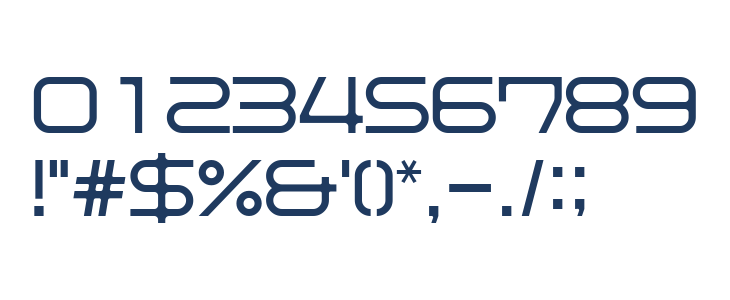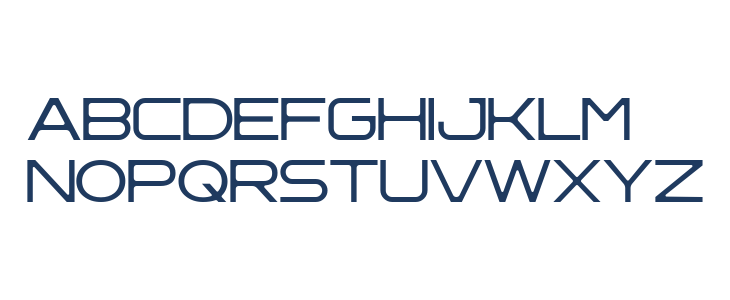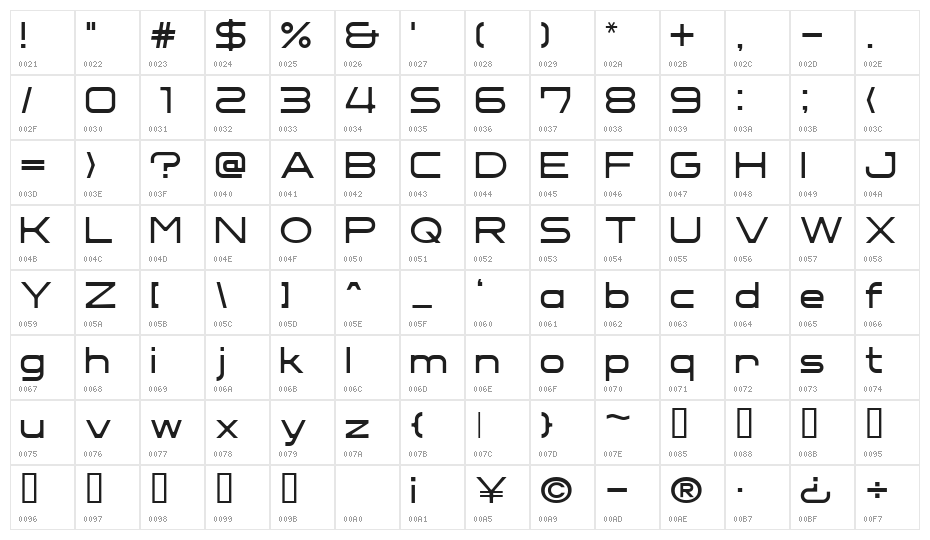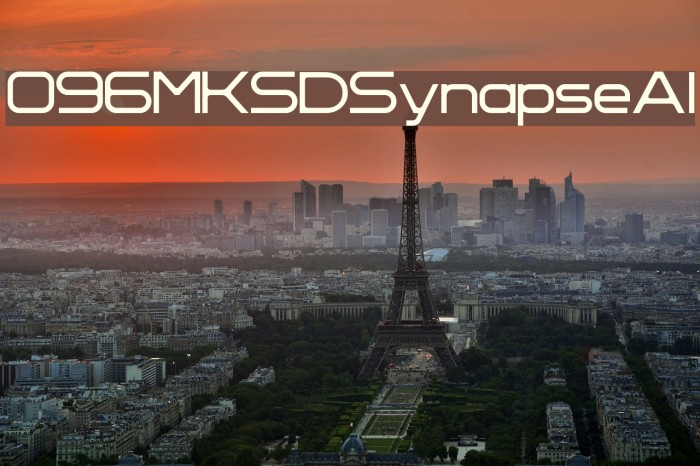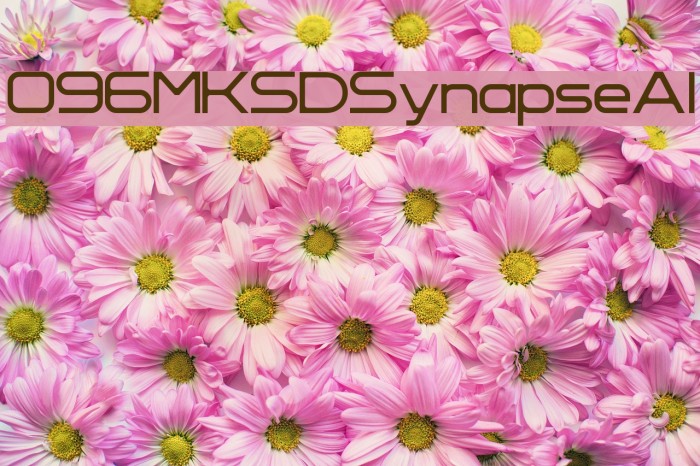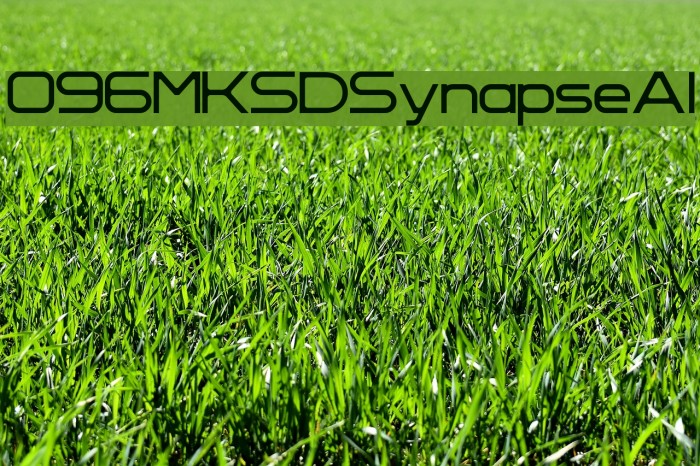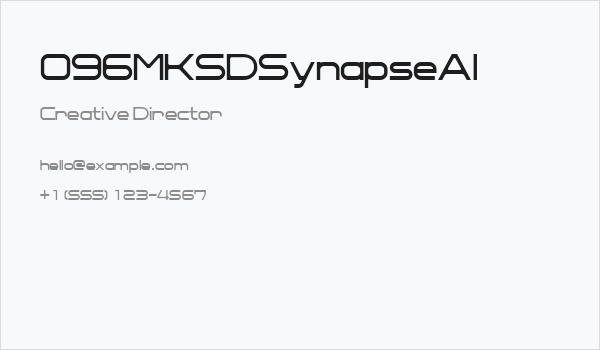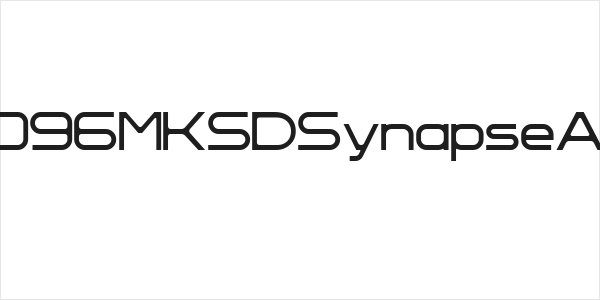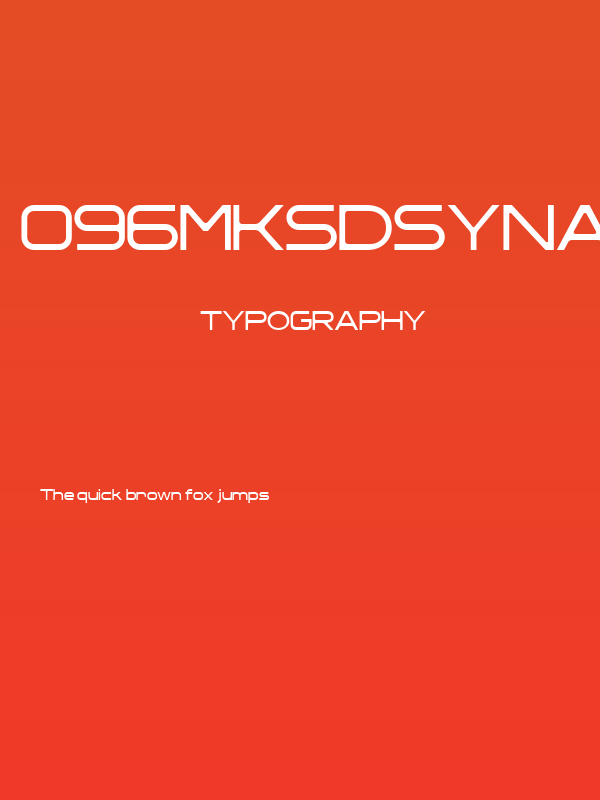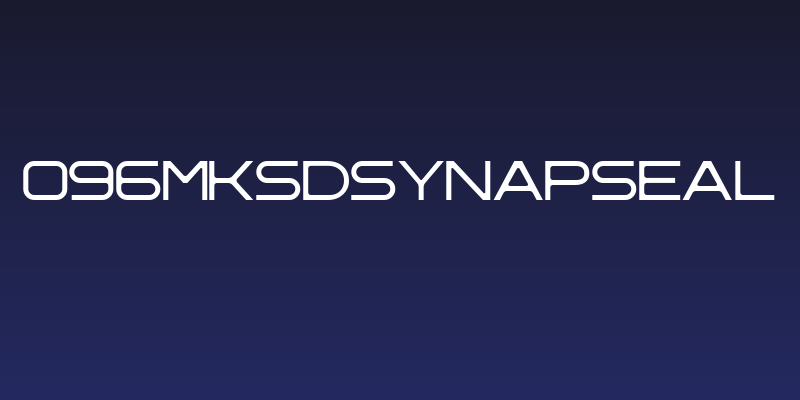
096MKSDSynapseAl Font
096MKSDSynapseAl Description
This font features a sleek, modern design with a geometric and slightly futuristic aesthetic. The characters are crafted with clean lines and a uniform stroke width, giving it a balanced and harmonious appearance. The uppercase letters are bold and assertive, while the lowercase letters maintain a consistent style, ensuring readability. The numerals are distinct and align well with the overall design, making them suitable for digital displays. Special characters are integrated seamlessly, enhancing the font's versatility. This typeface is ideal for projects that require a contemporary and tech-savvy look.
| Use Case | Headlines, Logos, Digital displays |
| Proposed Projects | Ideal for tech branding, digital interfaces, modern advertising, and futuristic designs. |